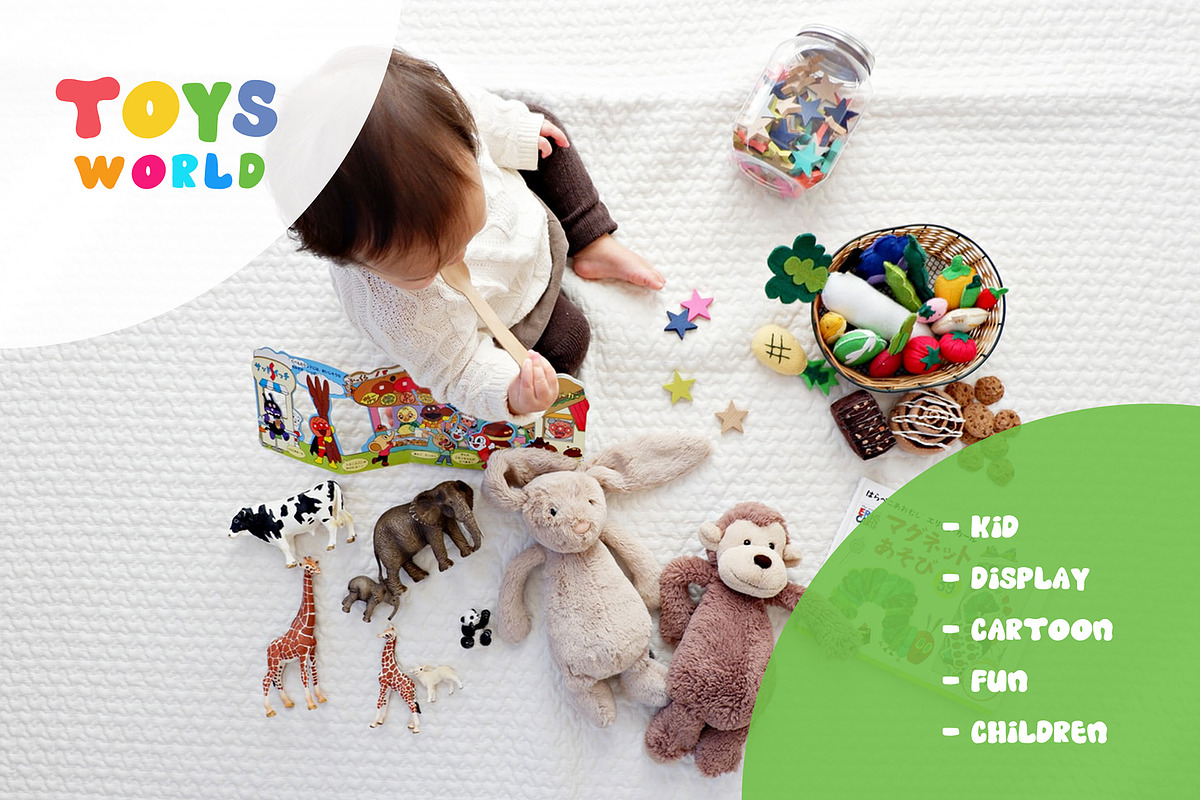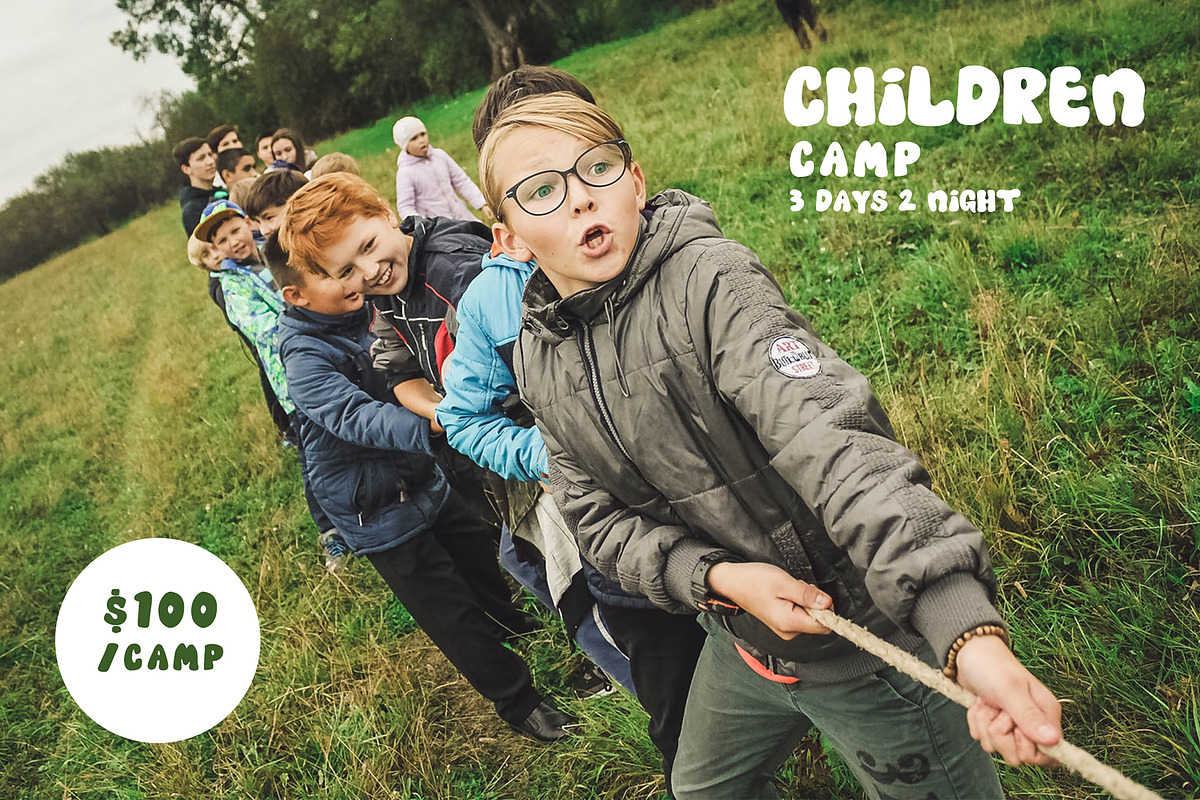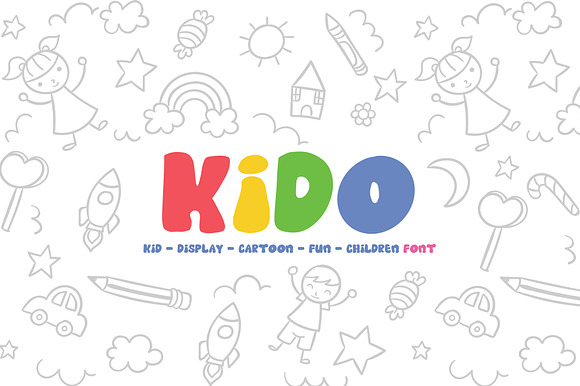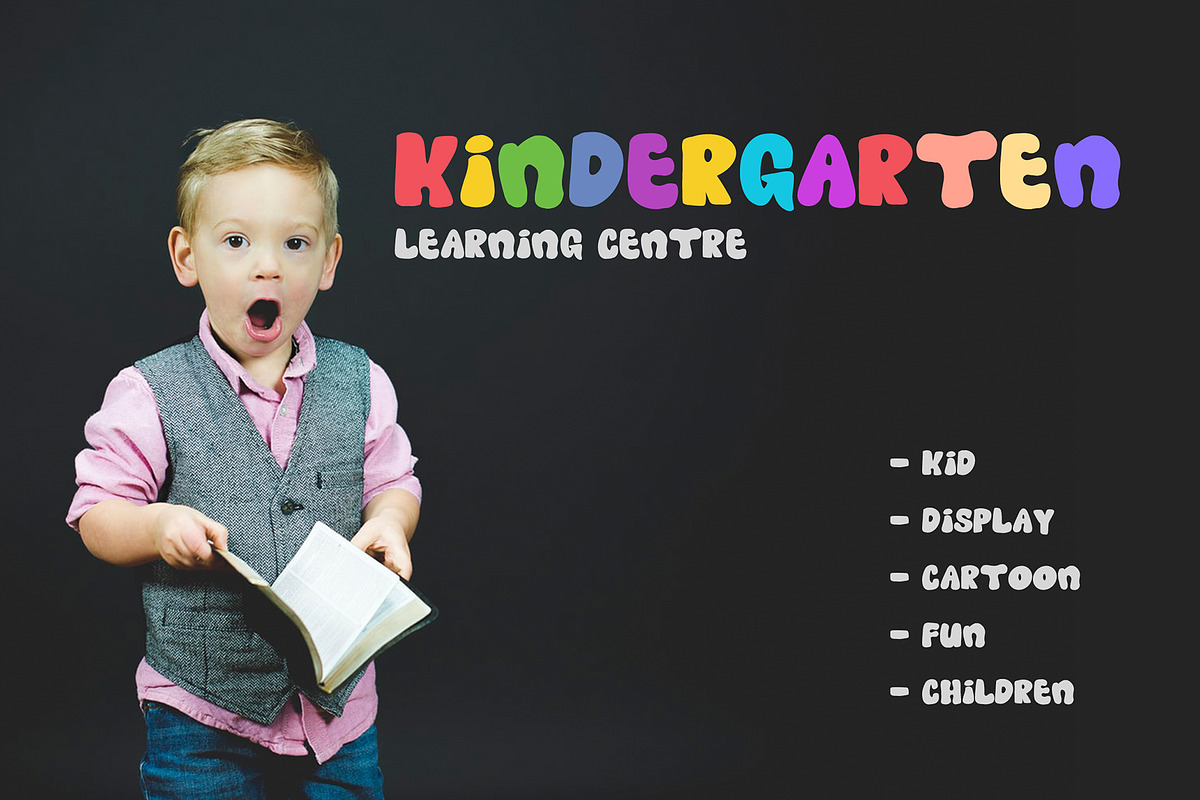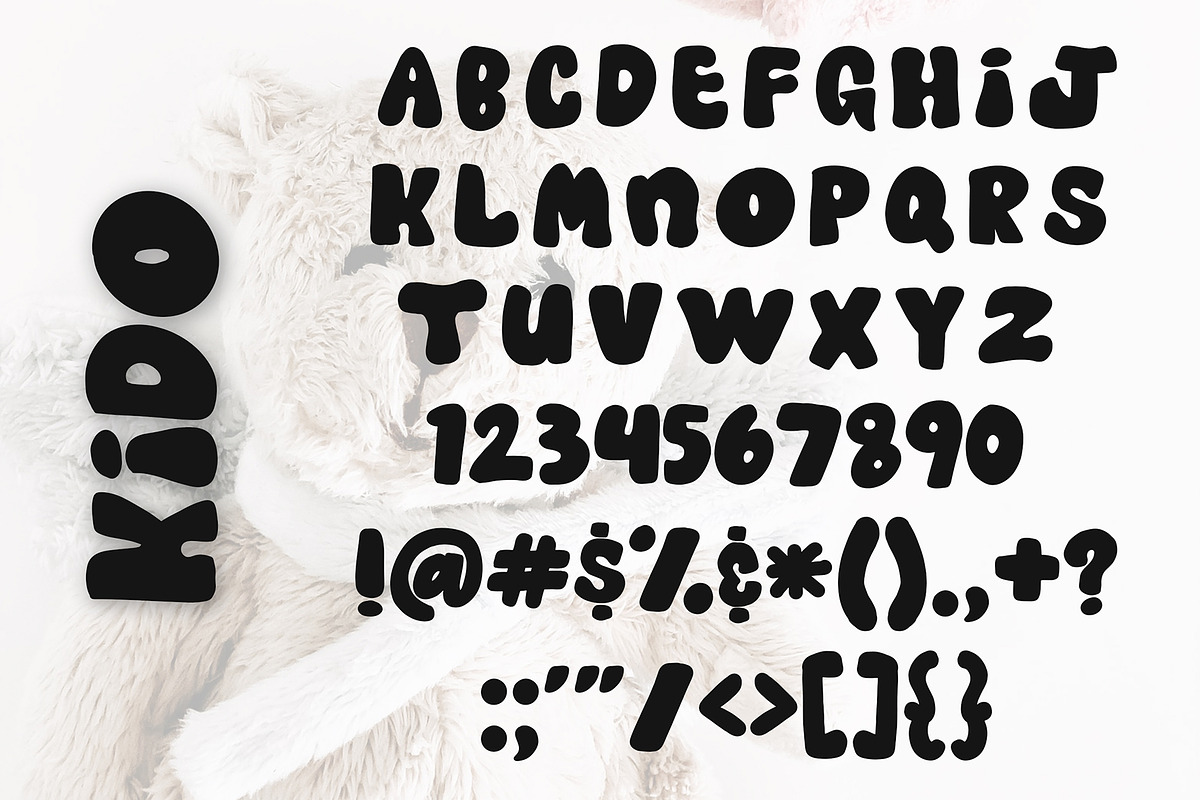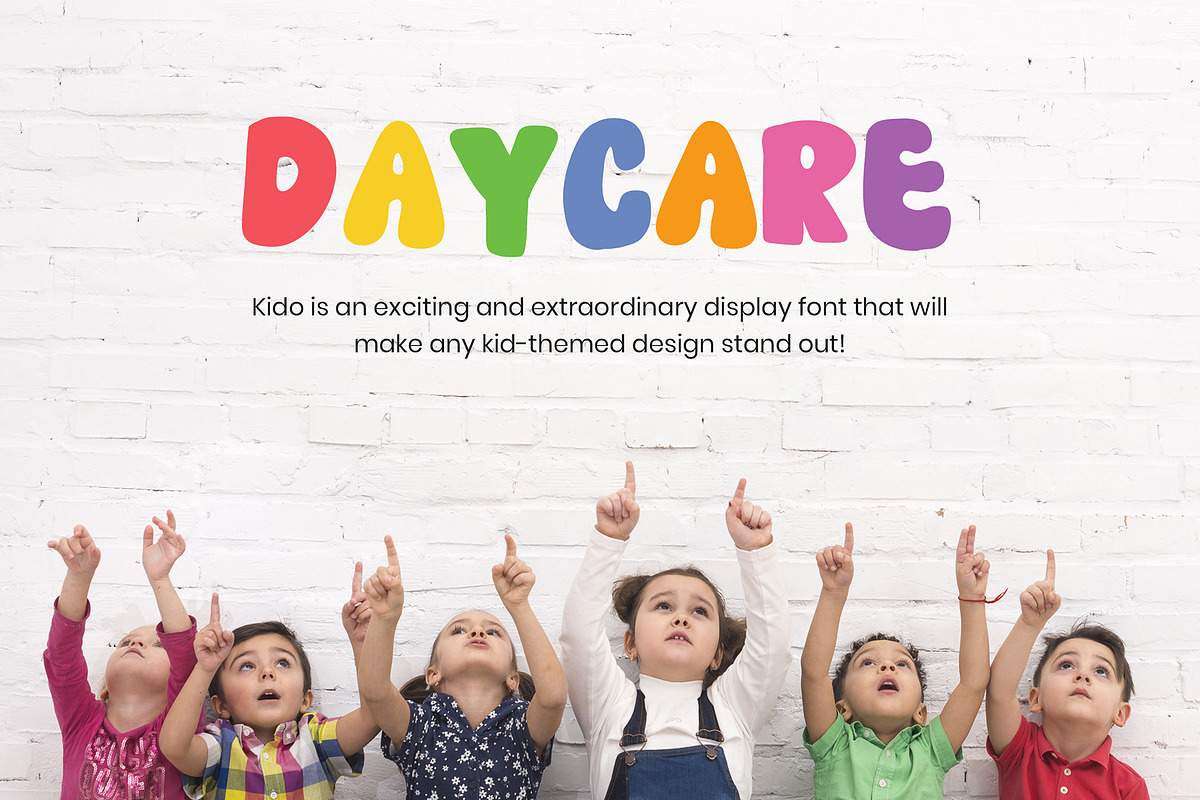
Kido - Fun Children Display Font
Kido - Fun Children Display Font is an exciting and extraordinary display font that will make any kid-themed design stand out!
Kido is perfect for branding projects, logo, tshirt designs, book cover design, social media posts, advertisements, product packaging, product designs, label, watermark, invitation, stationery and any projects.
Kido - Fun Children Display Font by Formatika Studio fits naturally into Branding, posters, packaging, typography.